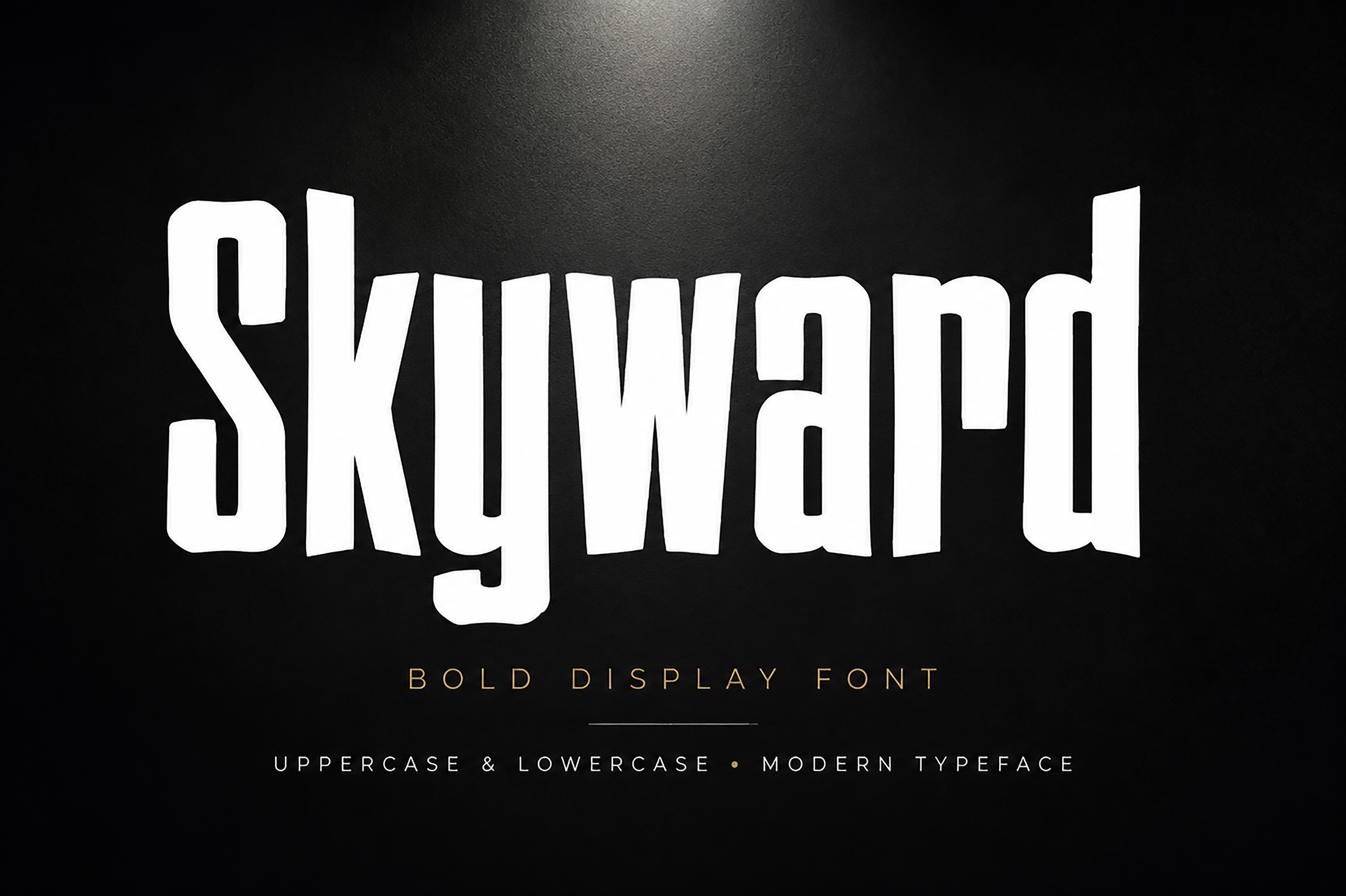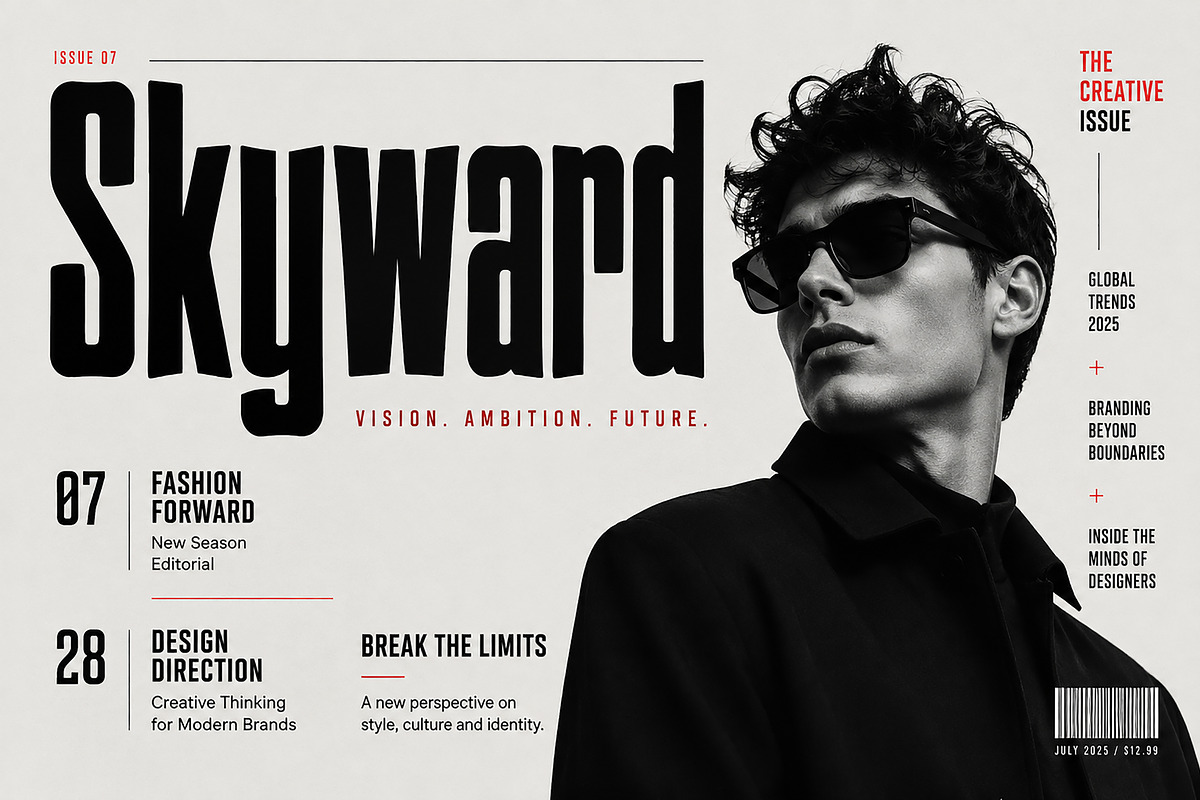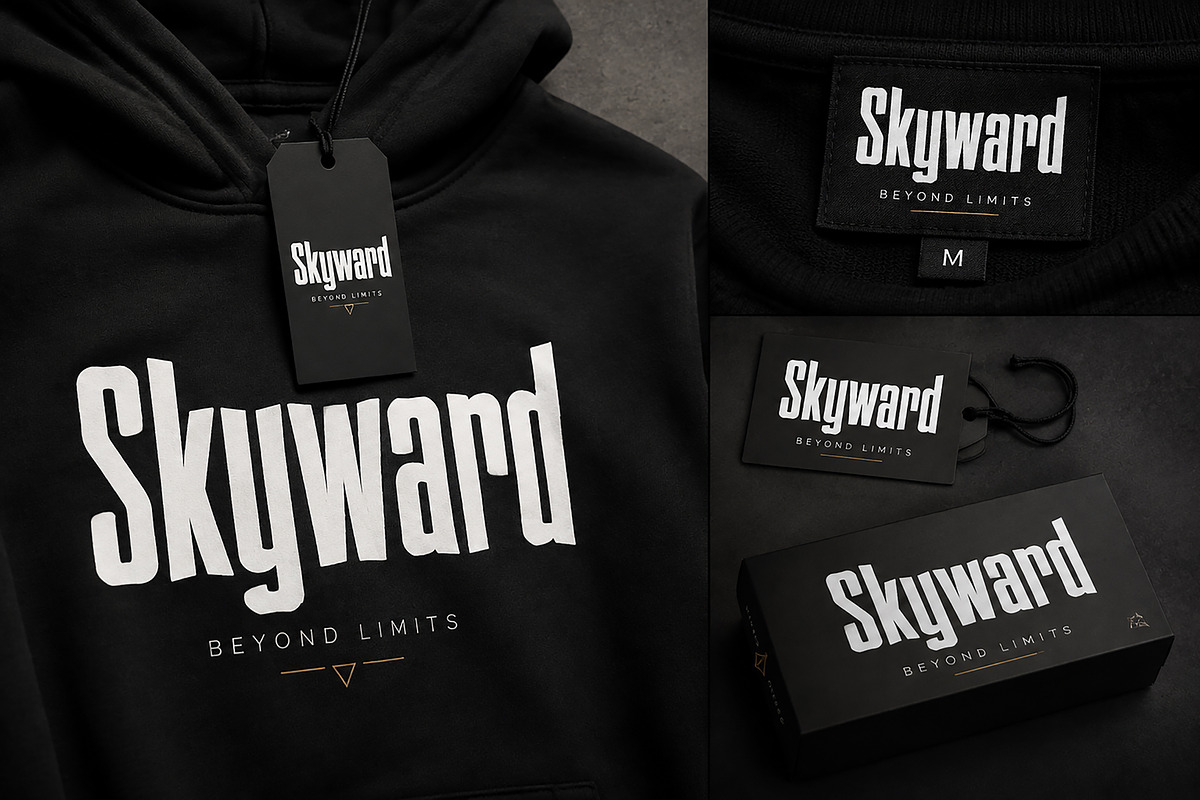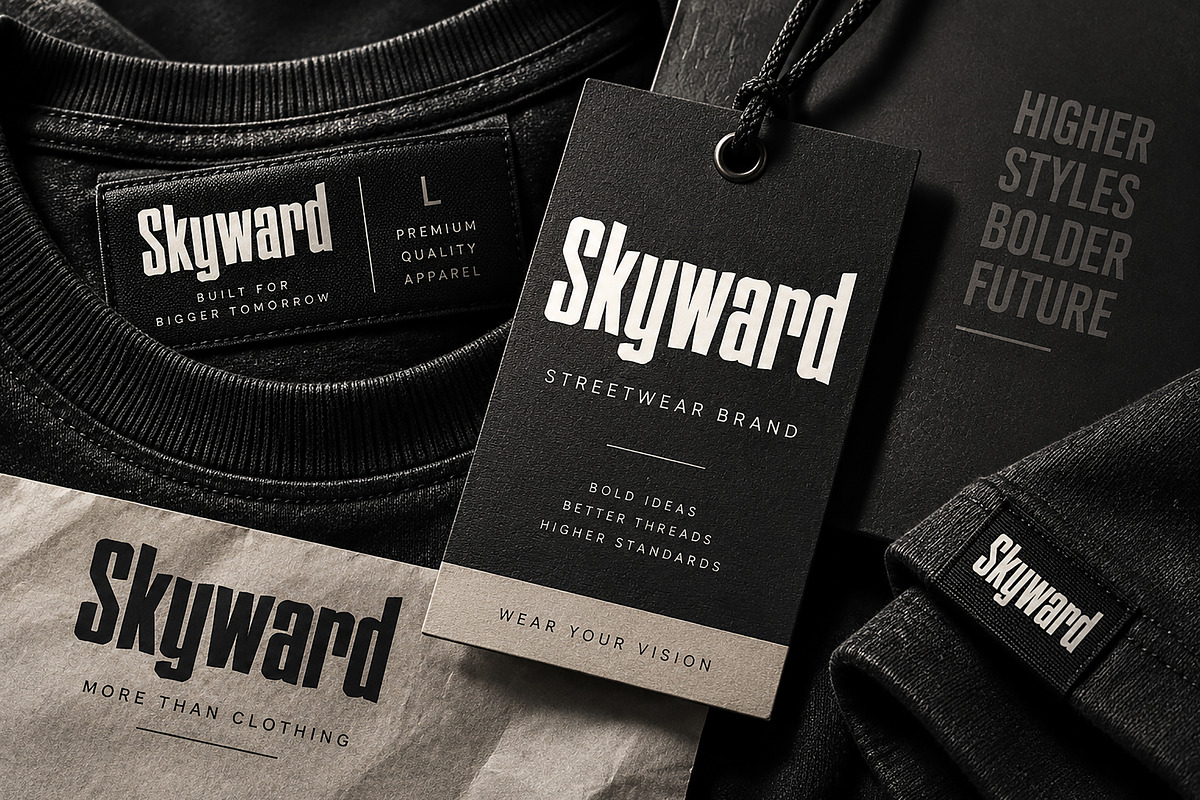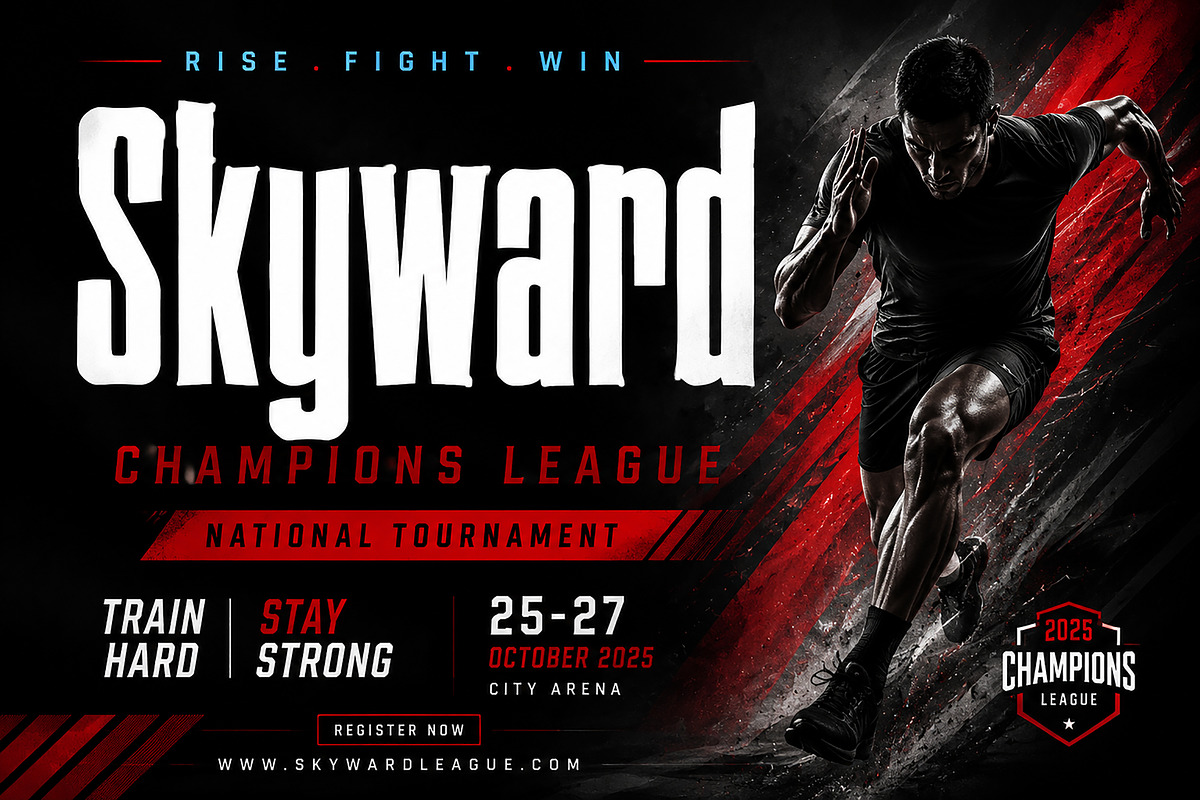
Skyward – Bold Display Typeface
Skyward – Bold Condensed Display Typeface
Skyward is a powerful bold condensed display font designed to create a strong visual impact. With its tall proportions, unique character shapes, and modern attitude, Skyward brings a bold personality to branding, posters, headlines, and creative projects.
Perfect for designers looking for a statement typeface with an urban, energetic, and contemporary feel. Skyward works beautifully for streetwear branding, sports graphics, editorial layouts, logo designs, packaging, posters, titles, and modern advertising campaigns.
Its condensed structure helps create strong typography compositions while maintaining a stylish and memorable appearance. Whether used for large headlines or impactful brand identities, Skyward delivers a confident and professional look.
Logo & Brand Identity Design
Streetwear & Fashion Branding
Sports Posters & Event Graphics
Magazine Headlines
Editorial Design
Album Covers
Advertising Campaigns
Titles & Display Typography
✔ Bold Condensed Display Style
✔ Modern & Impactful Letterforms
✔ Professional Typography Design
✔ Great for Headlines and Large Text
✔ Works perfectly for branding and promotional materials